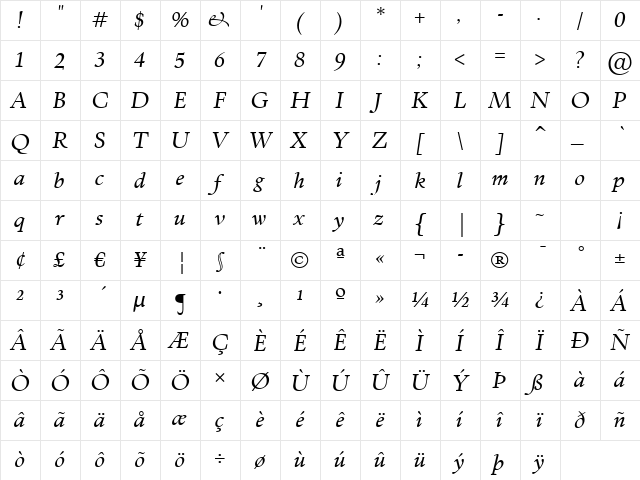
Kennedy GD Book Italic
Style: Book Italic
Kennedy GD Family
Design Context for Kennedy GD
Kennedy GD is a composed and adaptable typeface that performs quietly and consistently across a wide range of design contexts. The slanted form adds forward momentum and visual energy.
Pro Tip: Use Kennedy GD for emphasis, pull quotes, and subheadings where its slanted energy can add rhythm to the layout.